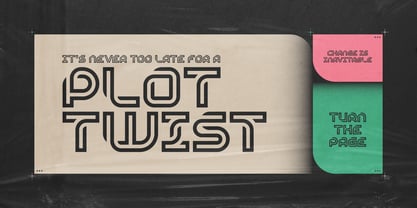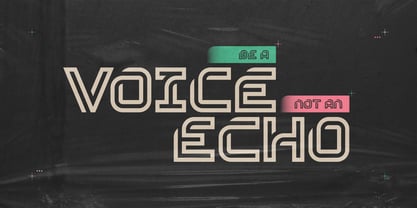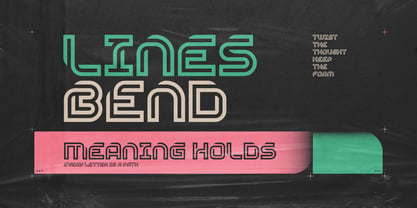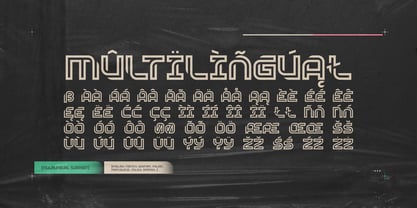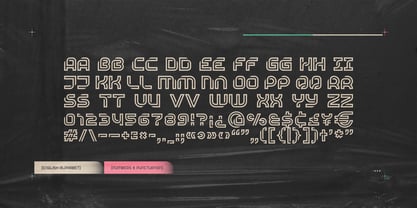
Tangler
by Gleb Guralnyk
The Tangler Font Family was designed by Gleb Guralnyk and published by Gleb Guralnyk. Tangler contains 1 styles. More about this family
Tangler is a geometric display font made from straight lines that twist into carefully structured forms. With a subtle nod to vintage signage, it adds an authentic character to modern designs.
Tangler includes only capital letters, but each one has two variations. The font offers multilingual support — check out the screenshot to see the full character set!